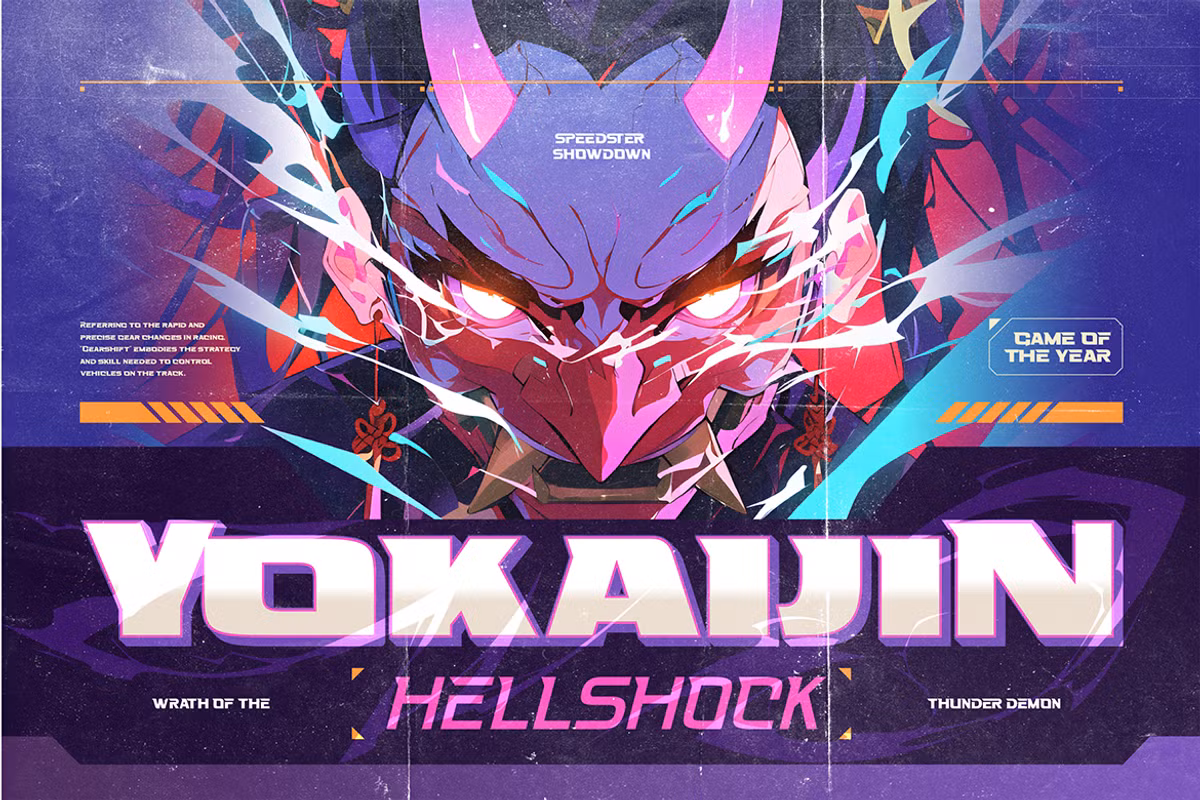
Fasthour: High-Energy Display Font for Bold Visual Impact
Introduction to Fasthour
Fasthour is a really energetic font that’s all about capturing the feeling of speed and power. It’s got sharp edges and angled shapes that give it a strong, modern look. This font isn’t just about looking good, it’s about making a statement – it’s bold, dynamic, and totally futuristic. If you’re working on a tech project, designing graphics for a game, or just want to create a poster that really grabs attention, Fasthour is a great choice.
It’s versatile, eye-catching, and can really help take your projects to the next level. With its unique design, Fasthour can add a sense of energy and excitement to anything you create. Whether you’re looking to make a bold statement or just want to add some visual interest, this font is definitely worth considering. It’s perfect for anyone who wants to create something that’s fast-paced, high-tech, and totally cutting-edge.
Design Style of Fasthour
The design of Fasthour is characterized by its unique style that merges modern aesthetics with a sense of urgency and energy. The font features:
- Sharp Cuts: These elements contribute to the fast and charged feeling of the font.
- Angled Forms: The angles in the letterforms evoke a sense of motion, making it ideal for dynamic content.
This font has a strong and solid look that makes it easy to read, even when it’s really big. Fasthour comes in a range of styles, like Thin, Regular, Bold, Oblique, Outline, and Extrude, giving designers a lot of options to play with.
This versatility means designers can create typography that’s not just layered, but also really eye-catching and effective. With so many styles to choose from, designers can experiment and find the perfect combination to make their work stand out. Whether it’s a bold statement or a subtle touch, Fasthour’s varied styles can help designers add depth and visual interest to their creations.
Character Sets and Features
One of the key things that makes Fasthour special is its huge collection of characters, including:
- Uppercase and lowercase letters
- A full set of numbers and punctuation
- Alternates and ligatures for enhanced typographic creativity
- Multilingual support, making it accessible for a diverse audience
Use Cases for Fasthour
Fasthour is more than just a pretty face – it’s also super versatile, which makes it perfect for all sorts of projects. So, what are some of the best ways to use it?
- Tech Branding: Use Fasthour in logos and branding materials to communicate innovation and energy.
- Sports Visuals: Its dynamic style is perfect for team jerseys, merchandise, and promotional graphics.
- Gaming Graphics: Incorporate Fasthour in game titles and interfaces to create an immersive experience.
- Posters and Event Titles: The bold nature of Fasthour ensures that your event titles grab attention and convey excitement.
- Bold Digital Content: Use it in web design and online marketing materials to create a strong visual presence.
To maximize the impact of Fasthour in your designs, consider pairing it with complementary fonts. Here are some suggestions:
- Sans-serif Fonts: Pair Fasthour with clean sans-serif fonts like Helvetica or Montserrat for body text to maintain readability without overshadowing the display font.
- Geometric Fonts: Fonts like Futura or Avenir can harmonize with Fasthour’s sharp angles, creating a cohesive look.
- Serif Fonts: Using a modern serif like Merriweather can create a striking contrast, allowing Fasthour to stand out in headings while maintaining elegance in body text.
By selecting the right pairings, you can create a balanced and visually appealing typography layout that enhances your overall design.
This way, you can choose the license that best fits your needs and avoid any potential issues down the line. By taking the time to review the licensing options, you can use Fasthour with confidence and create great designs without worrying about any legal problems. This font is available in various styles, including:
- Fasthour Thin
- Fasthour Regular
- Fasthour Bold
- Fasthour Thin and Regular variants with Extrude, Oblique, and Outline styles
This freedom allows you to pick the ideal style that fits perfectly with what you have in mind for your design.
So, whether you’re creating graphics for a high-energy event or designing a sleek new tech brand, Fasthour is the perfect choice – it brings the style and energy your design needs to really stand out. With its unique design and versatility, Fasthour is sure to take your designs to the next level.